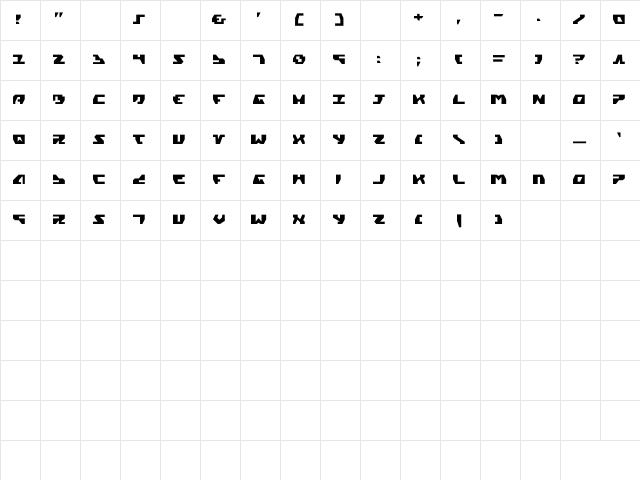
Gyrfalcon Regular Free Font
Gyrfalcon Regular
Design Context for Gyrfalcon
Gyrfalcon is a composed and adaptable typeface that performs quietly and consistently across a wide range of design contexts.
Pro Tip: Use Gyrfalcon in both headline and body roles to test its range before committing to a single application.